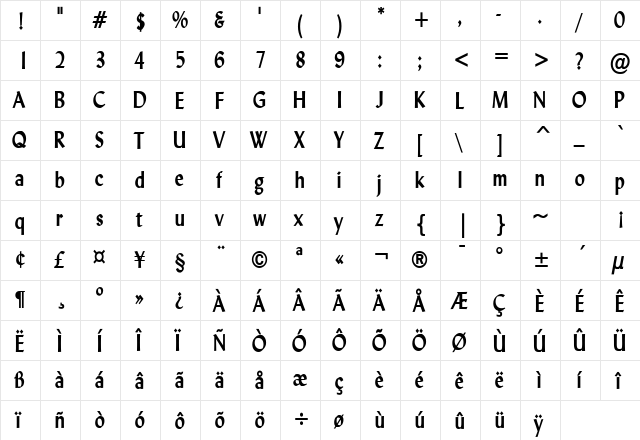
Lynda Condensed Bold Font Preview
Design Context for Lynda Condensed Typeface
Lynda Condensed takes a measured approach to typography — its balanced proportions and neutral character make it a reliable workhorse for both digital and print work. The heavy weight commands attention and anchors typographic hierarchies. Its narrow stance lets it pack a punch even in space-constrained designs.